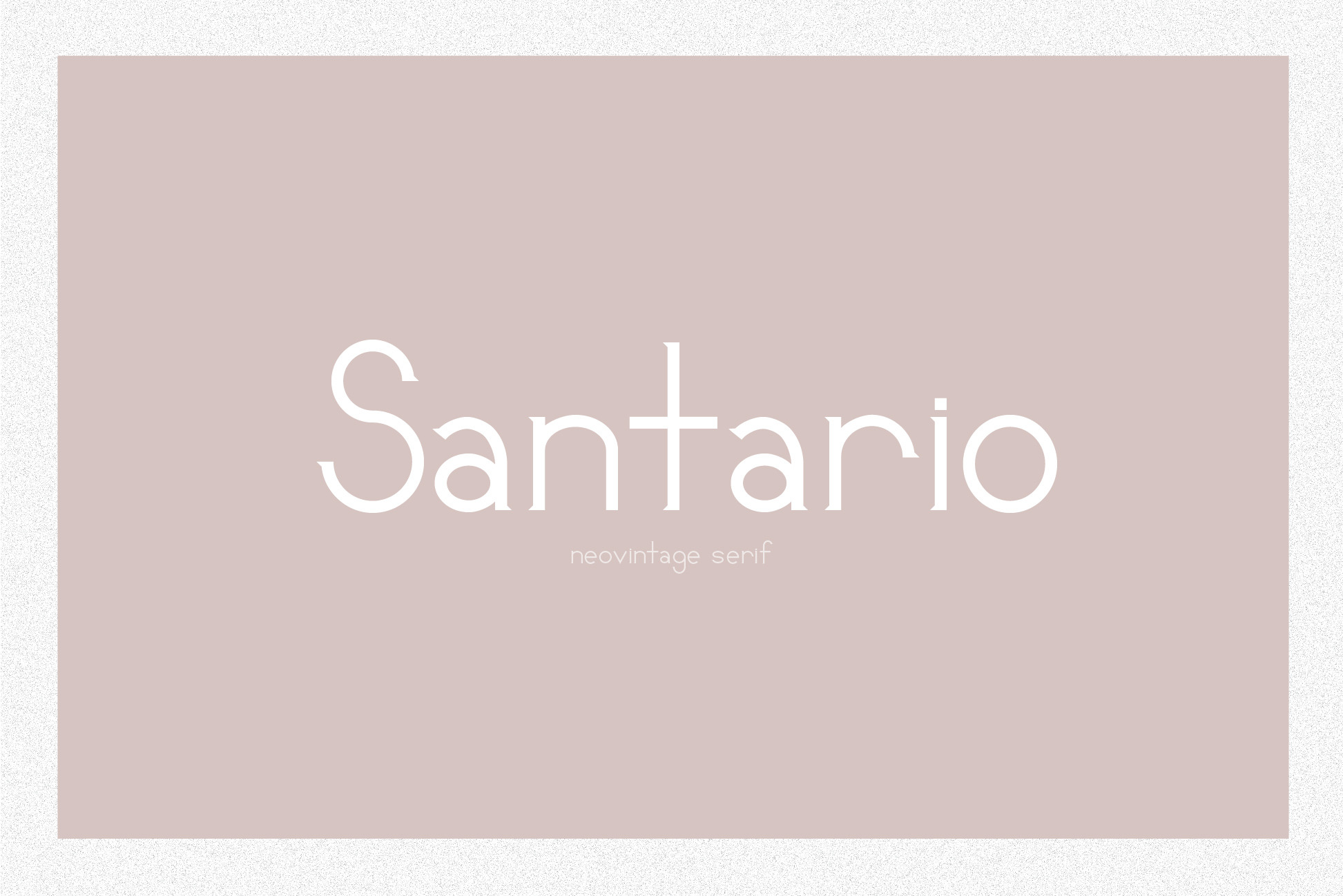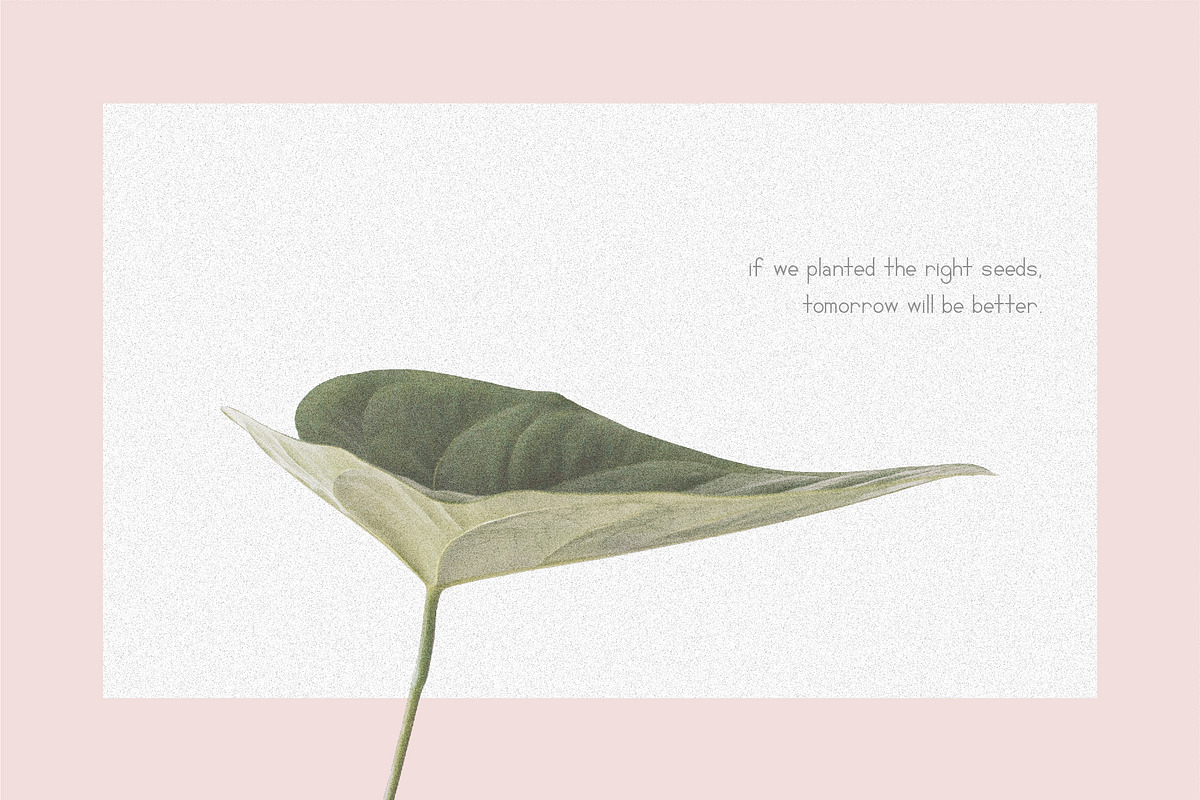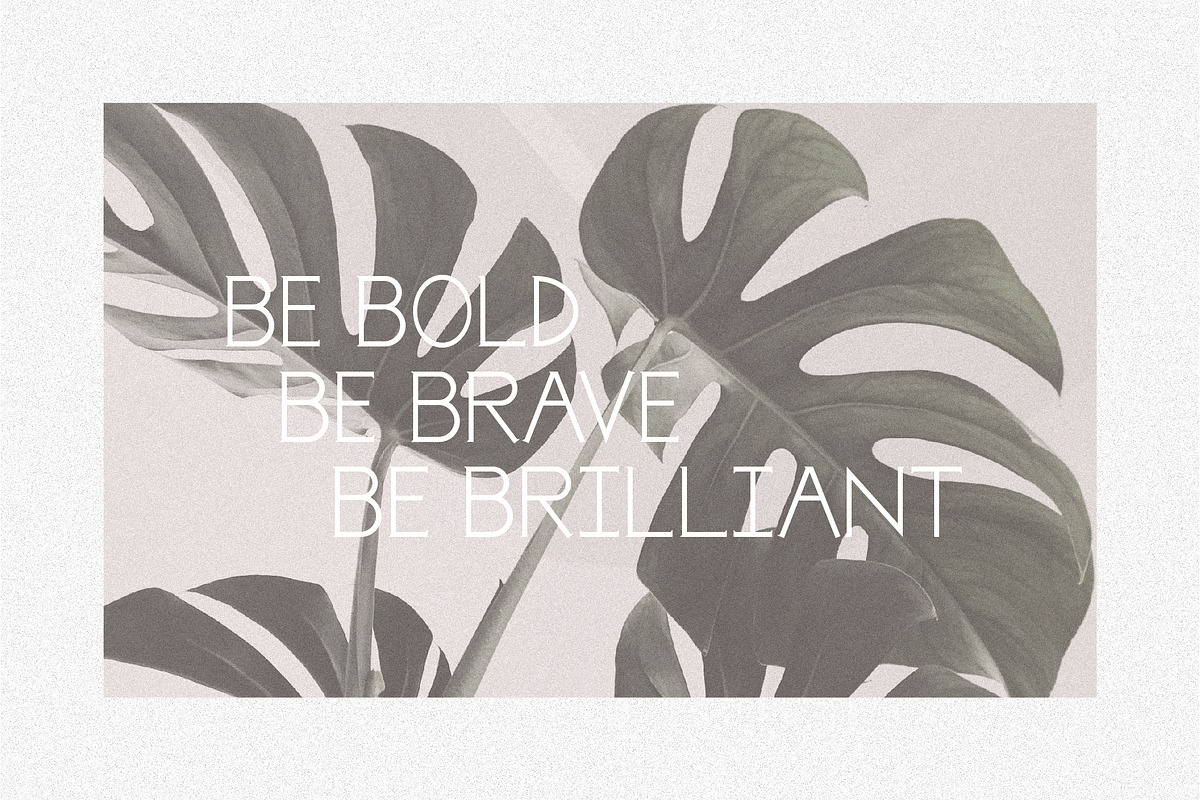
Santario | a serif font
Santario is a neovintage serif font and looks amazing in every context.
Characters include
- Uppercase letters
- Lowercase letters
- Non-English Character